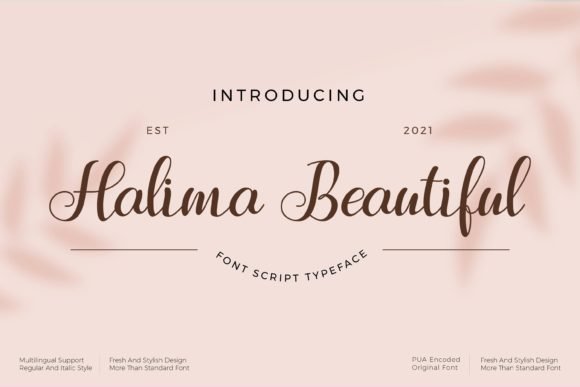
Find Your Design Inspiration with Halima Beautiful Font
Do you ever find yourself stuck in a creative rut, staring at a blank page or screen, wondering where to start? You’re not alone. As a designer, I’ve been there too. But then, something beautiful happens – you stumble upon the perfect font. For me, that perfect font was Halima Beautiful, a lovely and delicate script font that exudes elegance and class.
Halima Beautiful Font was crafted with one purpose in mind: to bring a touch of beauty and refinement to any design. Whether you’re working on a wedding invitation, a branding project, or a personal blog, this font is sure to elevate your work. Its delicate curves and lines create a sense of sophistication and luxury, making it a valuable asset for any designer looking to add a touch of class to their designs.
Halima Beautiful Font Key Features
- Font Family: Halima Beautiful Font is a unique, hand-drawn font family designed to add a touch of elegance and sophistication to any design.
- Character Count: The font family includes a wide range of characters, including uppercase and lowercase letters, numerals, punctuation marks, and special characters.
- Unique Characteristics: The font’s unique, hand-drawn design and subtle flair make it perfect for adding a touch of personality and whimsy to designs, while its elegant lines and curves make it suitable for more formal applications.
Designer Review: Halima Beautiful Font
At first glance, Halima Beautiful Font appears to be a beautiful, elegant script font that’s perfect for adding a touch of sophistication to your designs. ✨ The font’s flowing connections between letters create a sense of fluidity, making it ideal for headings and titles. It’s also versatile enough to be used for body text, as long as you don’t mind a slightly slower reading pace.
- ✨ Elegant and sophisticated design that adds a touch of luxury to any design
- ✨ Beautiful connections between letters create a sense of fluidity and continuity
- ✨ Suitable for headings and titles, as well as body text in certain contexts
However, there are some limitations to consider. ⚠️ The font’s flowy connections can make it difficult to read in certain contexts, such as at small font sizes or in paragraphs with dense text. Additionally, the font’s design may not be suitable for all audiences, particularly those who prefer a more modern or minimalist aesthetic.
Limitsations:
- ⚠️ Can be difficult to read at small font sizes or in dense text
- ⚠️ May not be suitable for all audiences, particularly those who prefer a more modern or minimalist aesthetic
In conclusion, Halima Beautiful Font is a beautiful and elegant script font that’s perfect for adding a touch of sophistication to your designs. While it may have some limitations, it’s still a great option for designers who want to create a luxurious and high-end feel in their work.
Tips for Getting the Most Out of Halima Beautiful Font
Use Halima Beautiful Font for titles, headings, and other emphasis text to add a touch of elegance and sophistication.
Combine Halima Beautiful Font with other fonts to create a unique and visually appealing design.
Experiment with different font sizes, colors, and settings to find the perfect look for your design.
Halima Beautiful Font is perfect for:
Branding and logo design.
Magazine and book covers.
Any design project where you want to add a touch of beauty and sophistication.